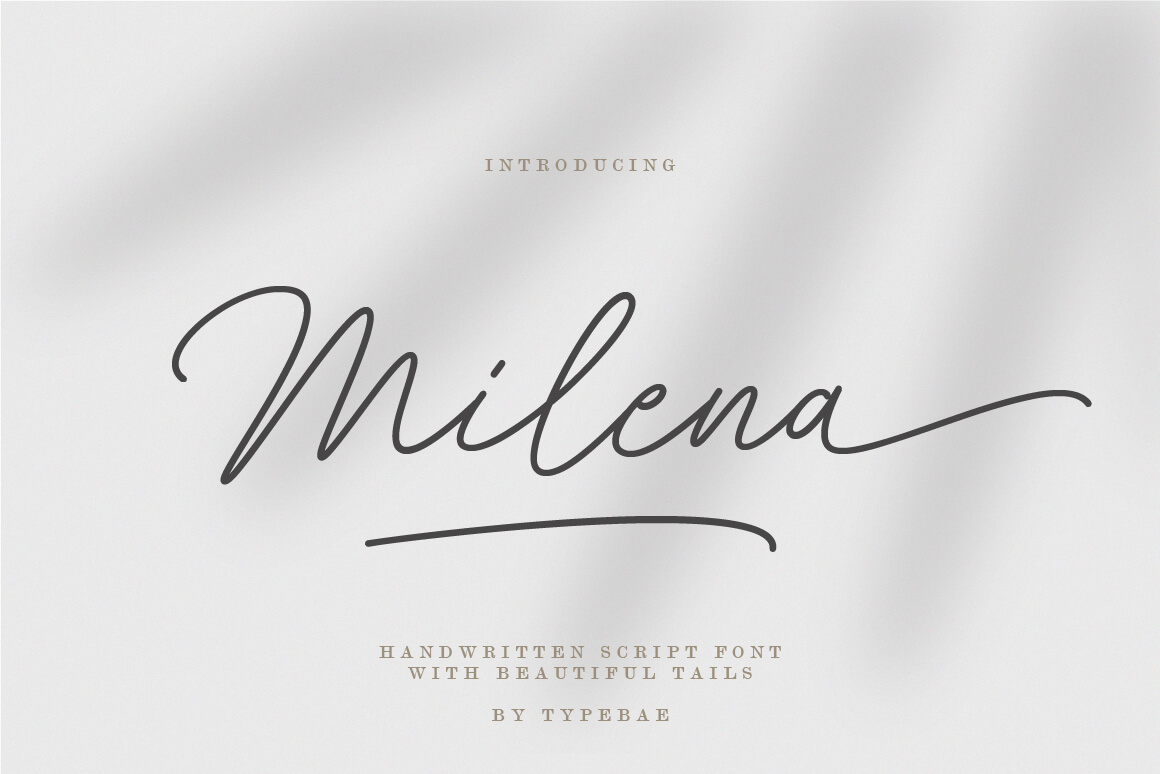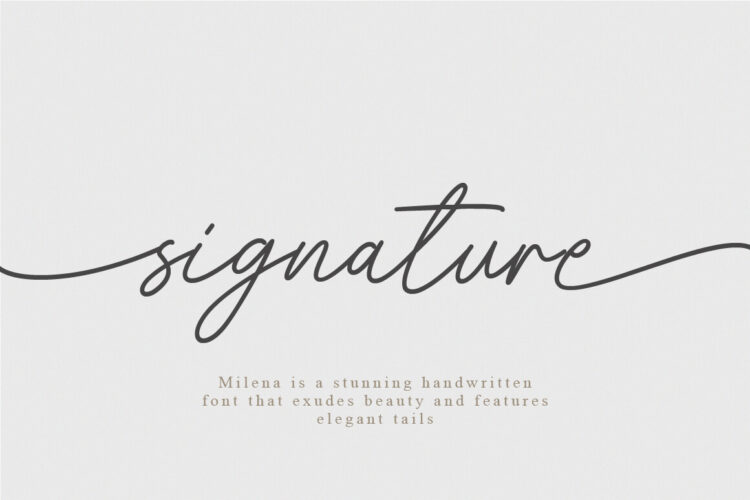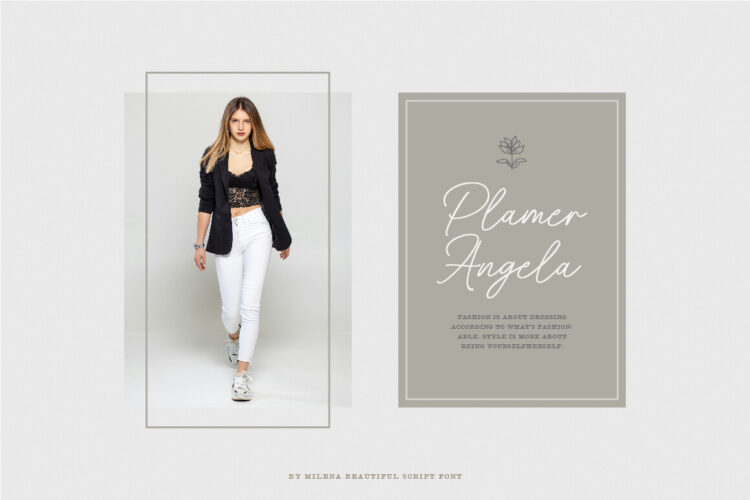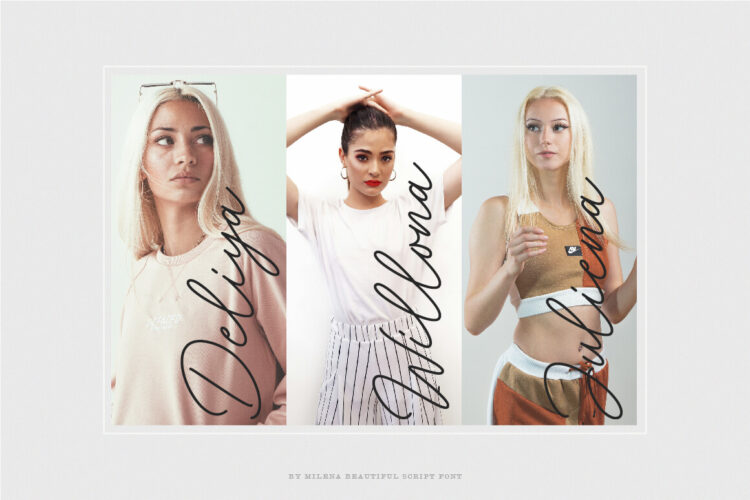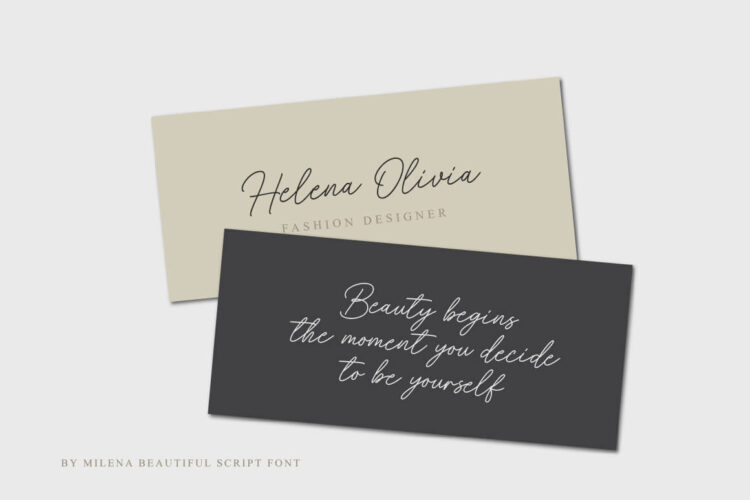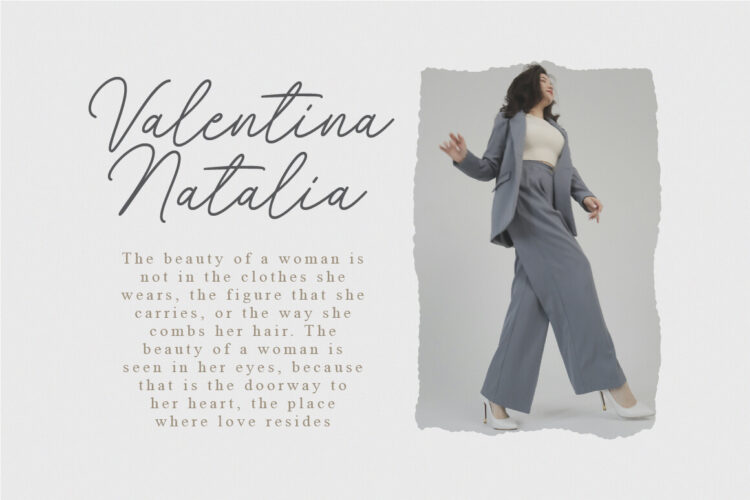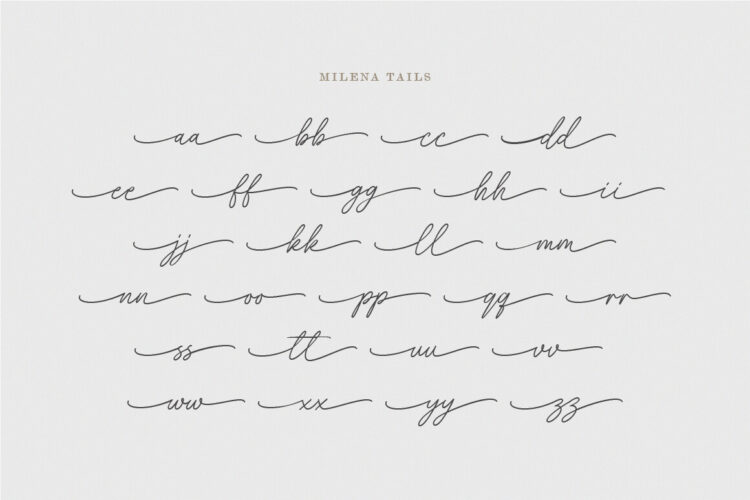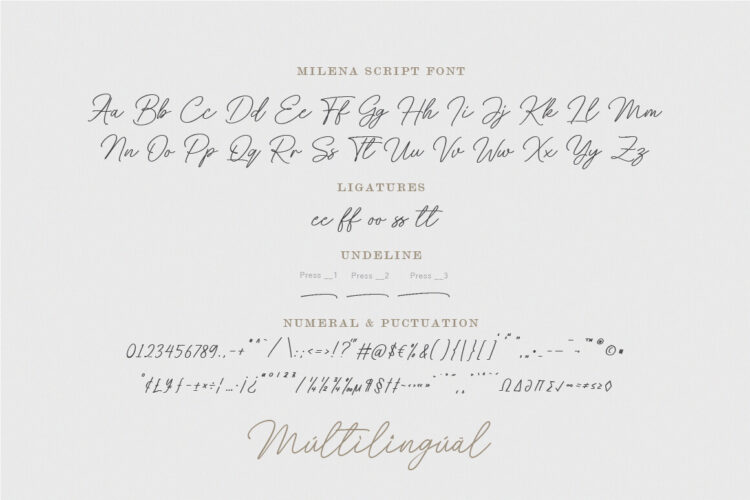
Beautiful Handwritten Script
Milena is a beautiful and graceful handwritten script font that features elegant strokes at the beginning and end of each letter. This provides a cohesive element, allowing certain letter combinations to flow seamlessly for a more natural and authentic look, making it suitable for various projects requiring a natural handwritten touch.
To use beginning and ending tails, you don’t need to use software that supports opentype, because we have made it separately so it’s very easy to use.
Features: Ligature, Stylistic Alternate (tails), Multilingual and PUA encoded.